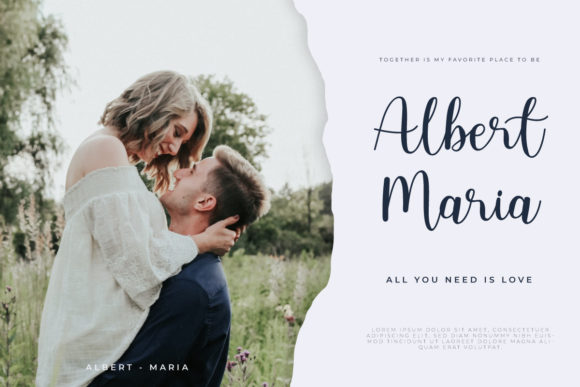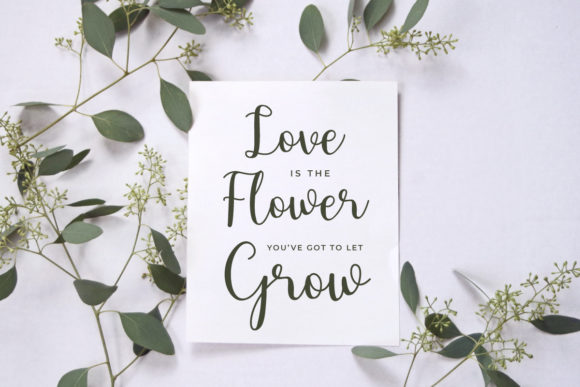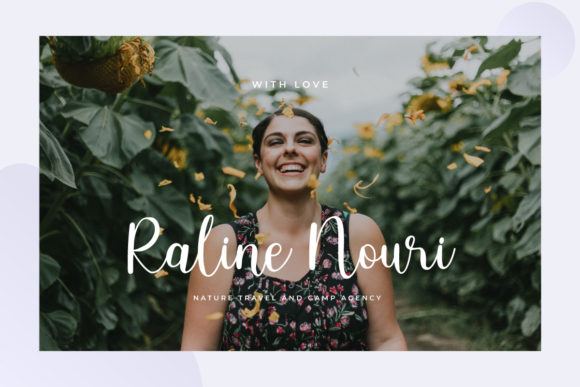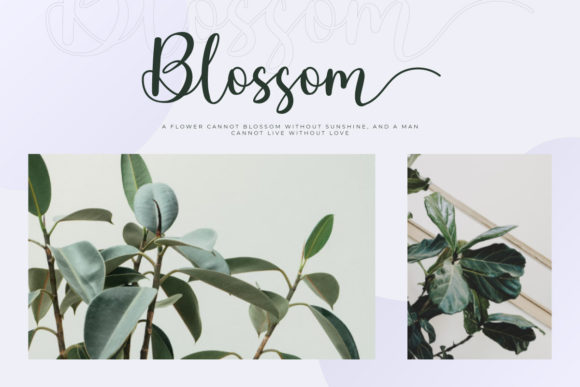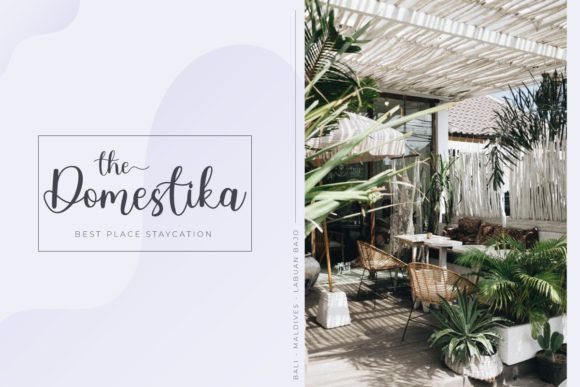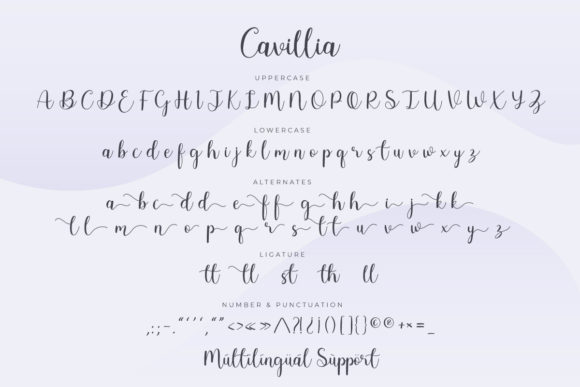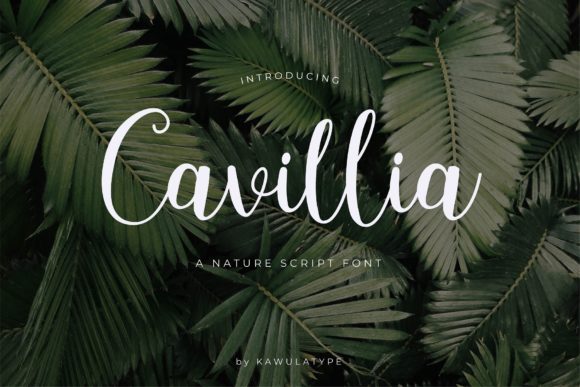
Cavillia Font: Elevate Your Designs with Elegance and Sophistication
In the world of typography, a font can make or break a design. For designers and crafters seeking to add a touch of class and modernity to their work, the Cavillia font is an excellent choice. This delicate script font boasts an elegant and sophisticated look, making it perfect for a wide range of applications, from logos and branding to invitations, stationery, and wedding designs.
The Characteristics of Cavillia Font
Cavillia is a script font that exudes refinement and poise. Its delicate strokes and fluid connections create a sense of movement and harmony, making it ideal for designs that require a touch of sophistication. The font’s modern look ensures that it stays relevant and fresh, even in today’s fast-paced design landscape.
What Can You Use Cavillia Font For?
The versatility of Cavillia font is one of its most significant advantages. This font can be used for:
- Logos and Branding: Create a lasting impression with a logo that exudes elegance and sophistication.
- Invitations and Stationery: Add a touch of refinement to your invitations, greeting cards, and stationery.
- Wedding Designs: Make your wedding designs, such as invitations, programs, and place cards, truly unforgettable.
- Social Media Posts: Elevate your social media posts with a font that is both modern and elegant.
- And much more! The possibilities are endless with Cavillia font.
Why Choose Cavillia Font?
With so many fonts available, why choose Cavillia? Here are just a few reasons:
- Unique and elegant design: Cavillia font offers a unique and elegant design that will set your designs apart.
- High-quality: The font is designed to the highest standards, ensuring that it looks great in any design.
- Versatile: Cavillia font can be used for a wide range of design applications.
Tips for Using Cavillia Font
To get the most out of Cavillia font, here are a few tips:
- Experiment with different sizes: Cavillia font looks great in a variety of sizes, from large headings to smaller body text.
- Pair it with other fonts: Try pairing Cavillia font with other fonts to create a unique and interesting design.
- Use it for emphasis: Use Cavillia font to add emphasis to certain parts of your design, such as headings or titles.
In conclusion, Cavillia font is a versatile and elegant script font that is perfect for designers and crafters seeking to add a touch of sophistication to their work. With its delicate strokes, fluid connections, and modern look, Cavillia font is ideal for a wide range of design applications. Its PUA encoding makes it easy to use, and its high-quality design ensures that it looks great in any design. Whether you’re creating logos, branding, invitations, or social media posts, Cavillia font is an excellent choice.